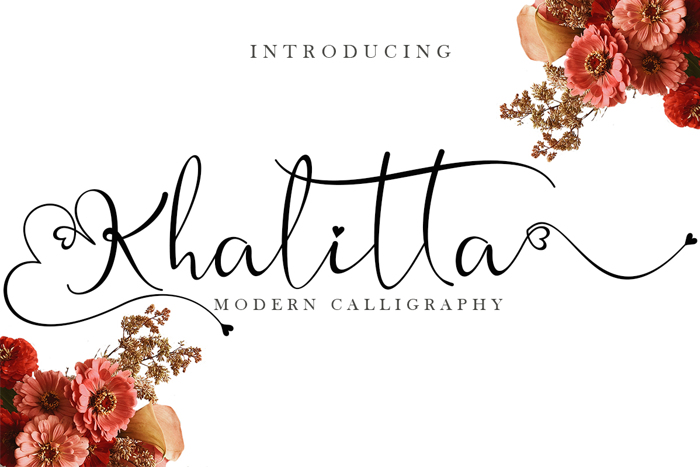
Khalitta Font
Khalitta is a modern calligraphy font. This font is very elegant and beautiful and is perfect for all types of your work. This font is perfect for weddings, branding and logos, for marketing your business, status updates on social media, and for capturing beautiful and romantic moments, and more.